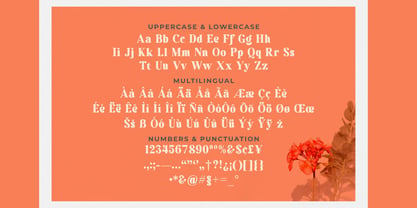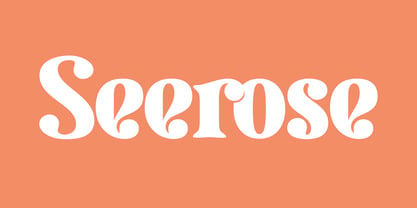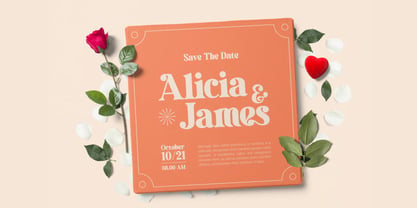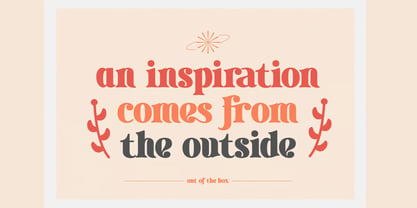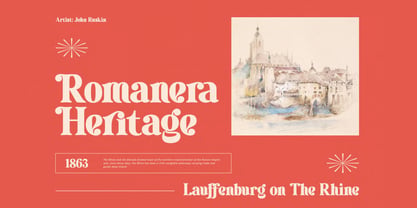
Seerose
Seerose is an elegant and versatile typeface crafted to bring beauty, sophistication, and a polished creative touch to a wide range of design projects. Its graceful character and refined appearance make it an excellent choice for designers looking to create memorable visual identities, stylish branding, and beautiful typography across both print and digital media.
Designed with flexibility in mind, Seerose works beautifully for logos and branding, photography, invitations, watermarks, advertisements, product designs, stationery, wedding designs, labels, packaging, and special events. Its balanced letterforms provide a clean and attractive appearance, allowing your typography to complement your design without overpowering the overall visual composition.
Whether you're creating a romantic wedding invitation, an elegant product label, a professional logo, or sophisticated promotional artwork, Seerose adds a distinctive and timeless touch to every project.
Key Features:
• Elegant & Versatile Design: A refined typeface suitable for a wide variety of creative applications.
• Uppercase & Lowercase: Complete letter sets for flexible typography and creative compositions.
• Numerals & Punctuation: Essential characters for professional branding and design work.
• Multilingual Support: Includes multilingual characters for projects requiring broader language coverage.
• Clean & Refined Letterforms: Designed to maintain visual balance and readability.
• Print & Digital Friendly: Works beautifully across branding materials, stationery, packaging, and digital graphics.
• Professional Display Style: Ideal for logos, headlines, labels, and other prominent design elements.
Perfect For:
• Logo & Branding Design: Create memorable and sophisticated brand identities.
• Wedding Invitations & Stationery: Add elegance to invitations, cards, menus, and wedding materials.
• Photography & Watermarks: Give photography projects a stylish and professional signature.
• Product Packaging & Labels: Perfect for cosmetics, handmade products, boutique goods, and premium packaging.
• Advertisements & Marketing: Enhance promotional graphics with beautiful typography.
• Stationery Design: Ideal for business cards, letterheads, greeting cards, and creative stationery.
• Special Events: Perfect for invitations, event signage, menus, and celebration materials.
• Product Design: Add a polished typographic finish to creative products and merchandise.
Bring elegance and versatility to your next project with Seerose—a beautifully crafted typeface designed for logos, branding, photography, invitations, watermarks, advertisements, stationery, wedding designs, labels, product packaging, and special events. Create sophisticated typography that adds charm and professionalism to every design.